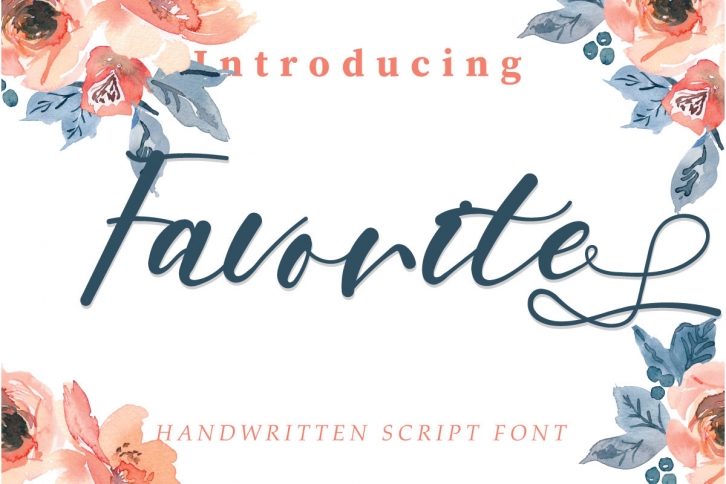
Favorite is a delicate, elegant, and flowing handwritten font. It has beautiful and well-balanced characters and as a result, it matches a wide pool of designs.